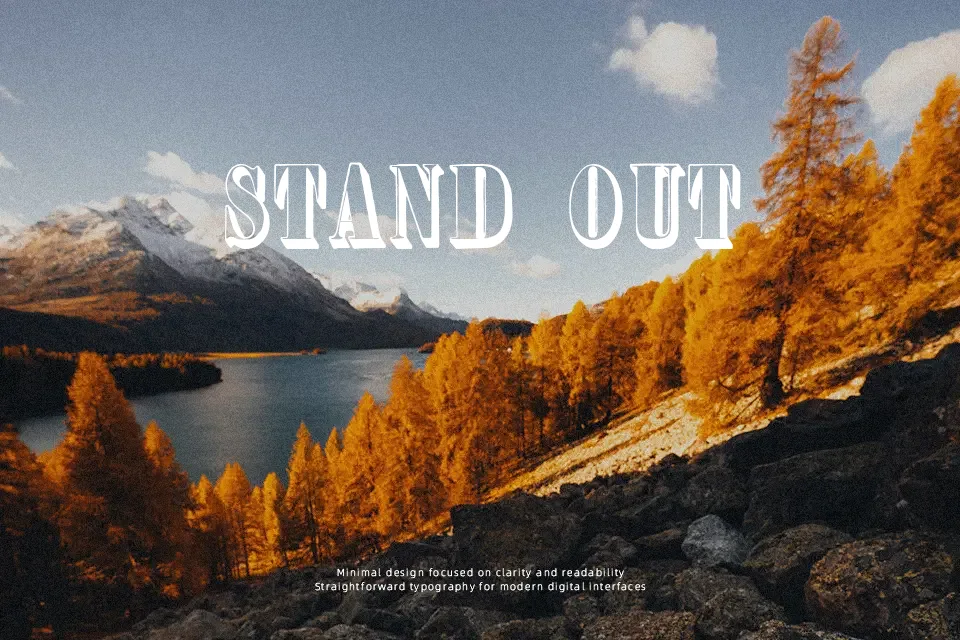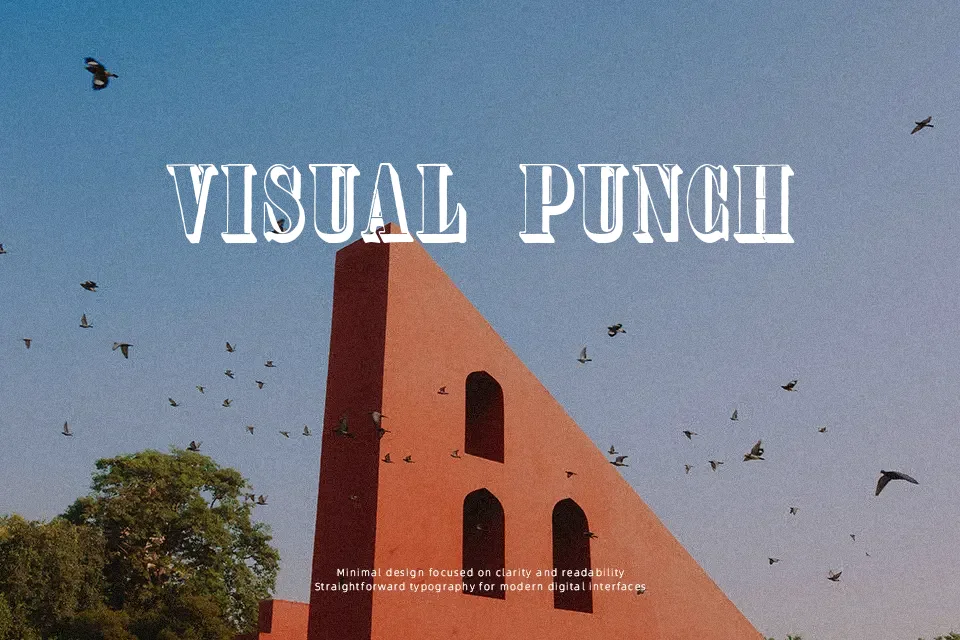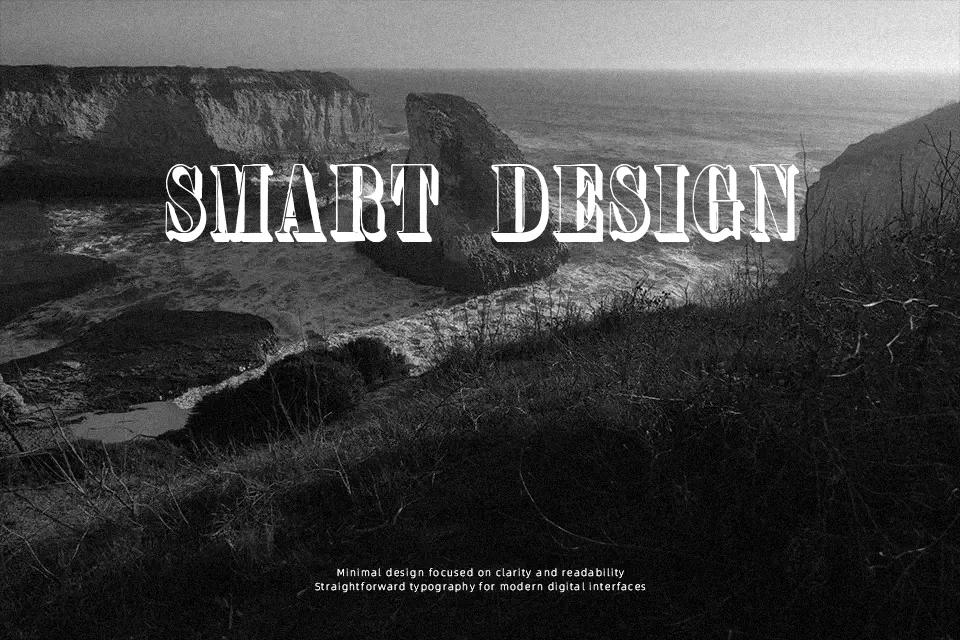
Plastische Plakat Antiqua Font
Designed by Dieter Steffmann
Plastische Plakat Antiqua uses wide, weighty serif forms with outlined interiors and layered dimensional detailing. The uppercase characters have a formal, poster-like presence, while the lower-case letters retain the same sculpted rhythm. Strokes appear bold around the outer edges but become visually complex inside each character, so spacing is most effective when the text has room to breathe. It reads clearly in large titles and short phrases, particularly where an old-fashioned printed look is useful. The decorative construction gives headlines strong impact, although the internal outlines become harder to follow in small sizes or long passages.
Best For: vintage poster headlines,theatrical event signage,retro product packaging,classic title cards
Perfect for advertising, branding, and headline, with a bold and decorative style.